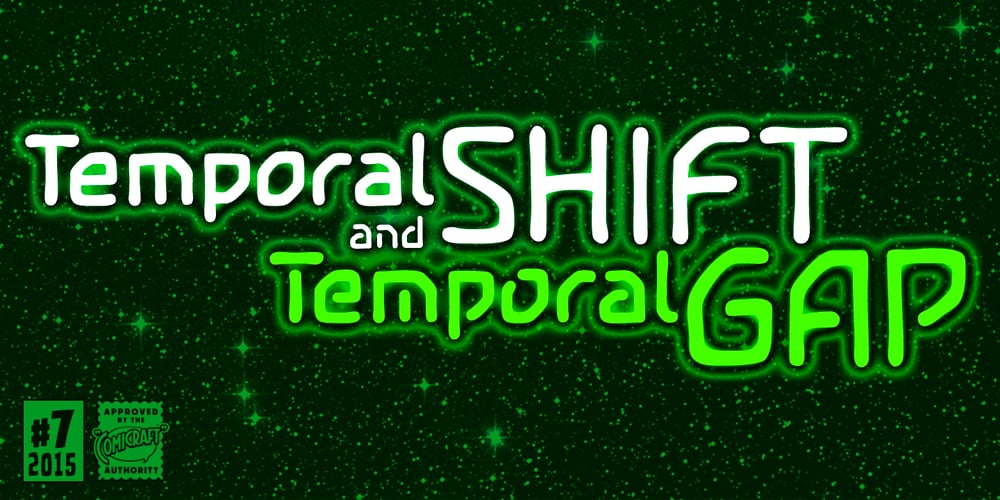
Temporal Shift & Gap Font Family was designed by John Roshell and published by Comicraft. Temporal Shift & Gap contains 12 styles and family package options. Would have, should have, could have… our irreversible progression from the past through the present to the future continues, our lives devouring history like gull-wing cars using up gas. But when you absolutely, positively Gotta Get Back In Time, and your every move could change the world, well sometimes you need to get yourself up to eighty-eight miles an hour and get the hell outta there! A temporal shift is an event via which a person, or a person sitting in a DeLorean, is transported out of their timeline into another point within the space-time continuum. And this is its font.